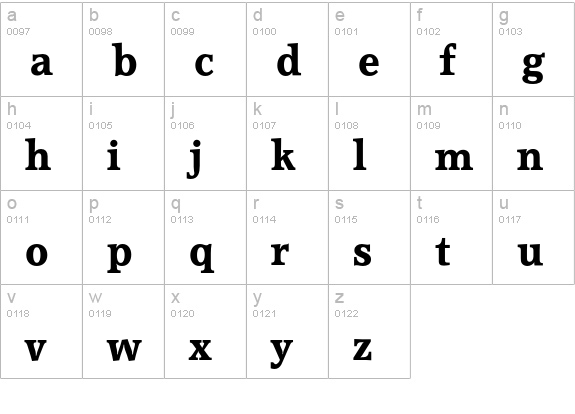
AccoladeEF-Bold Font Details
AccoladeEF-Bold is a strong, high-contrast variant in the AccoladeEF typeface family \xE2\x80\x94 well suited to headlines, attention-grabbing titles, and strong calls-to-action.
AccoladeEF-Bold font is a bold and striking typeface that exudes elegance and sophistication. Its strong, clean lines make it perfect for headlines, titles, and other prominent text elements. The font's bold weight commands attention and adds a touch of modern flair to any design project. What makes AccoladeEF-Bold even more appealing is that it is available for free download at FontsMarket.com. This means that designers and creatives can easily access this stylish font without any cost, making it a valuable addition to their font library. Whether you're working on a branding project, a poster design, or any other creative endeavor, AccoladeEF-Bold is sure to make a bold statement and elevate your work to the next level.